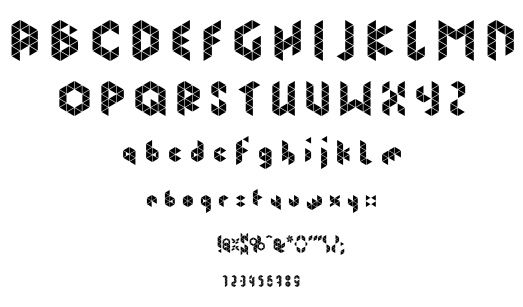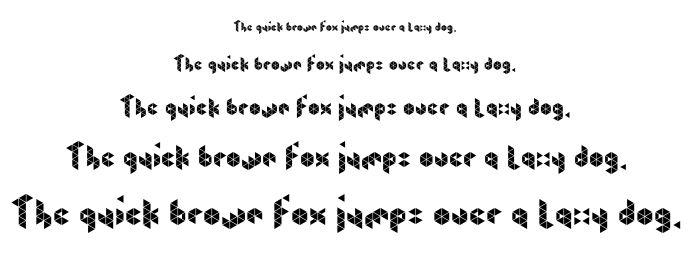
This is my first created alphabets font, inspired from my logo and prisms of kaleidoscope. & Thank you watching and used this! If you have any question plz contact me use eMail. My Page at – Behance: http://www.behance.net/erikyin Facebook: http://www.facebook.com/erikyin